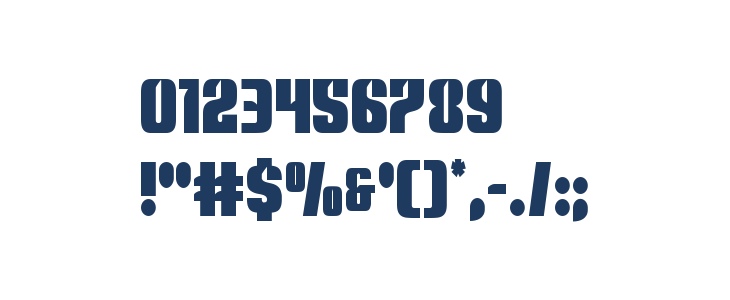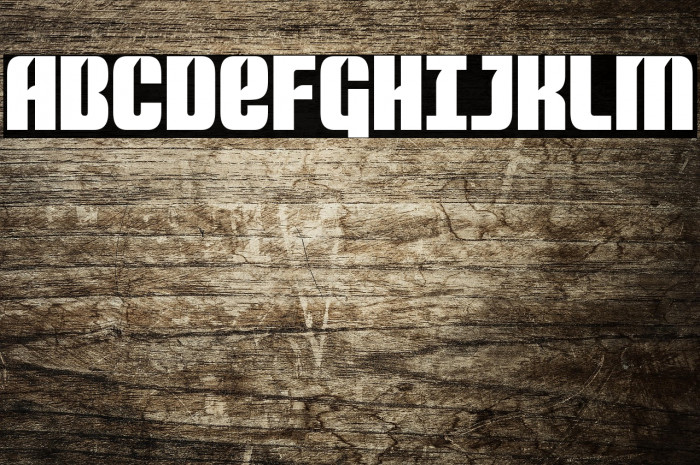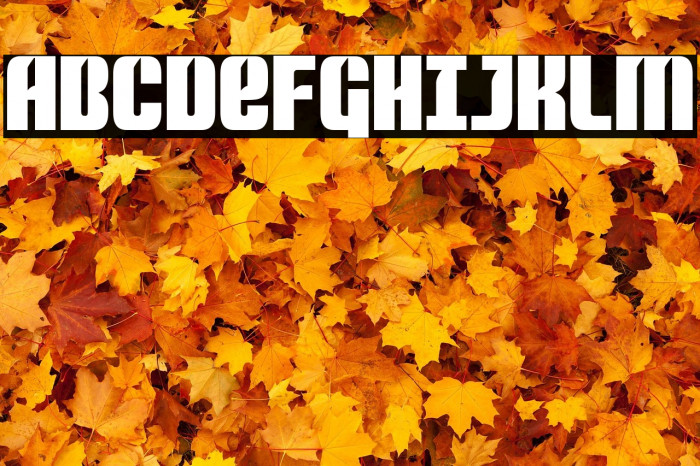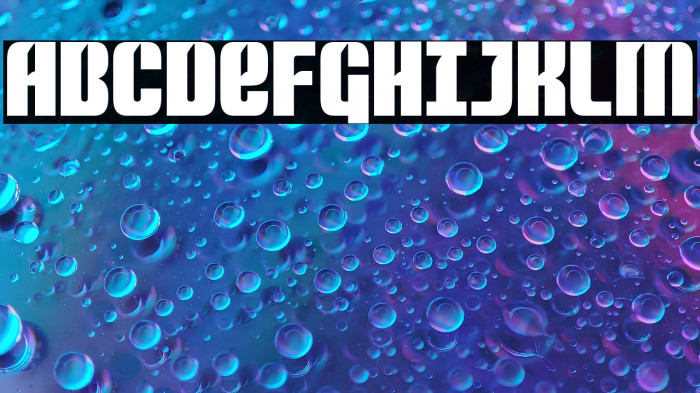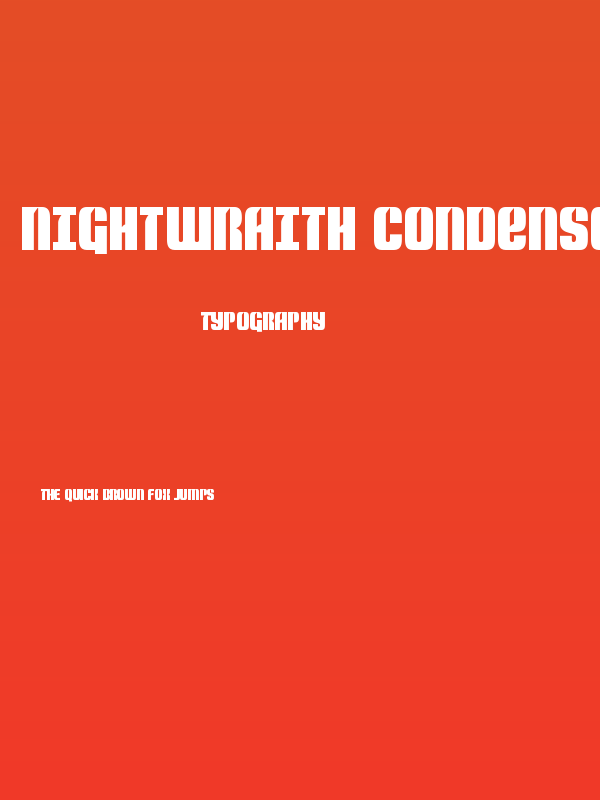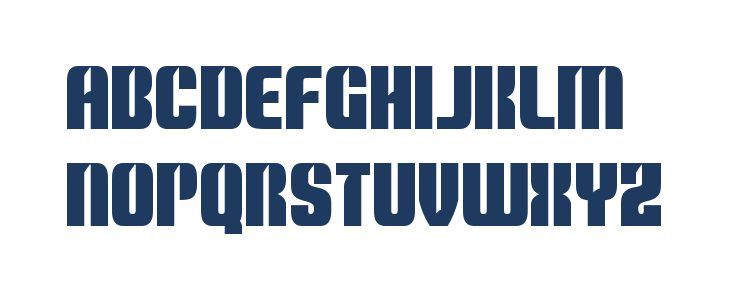
Nightwraith Condensed Font
Nightwraith Condensed Description
This font features a bold, condensed style with strong geometric shapes and high contrast between thick and thin strokes. The characters are designed with a modern, industrial aesthetic, making them stand out with their block-like appearance. The uppercase and lowercase letters maintain a consistent width, contributing to the font's uniformity and structured look. The numerals and special characters follow the same design principles, ensuring a cohesive visual identity across all glyphs. This font's striking presence makes it ideal for attention-grabbing designs.
| Proposed Projects | Ideal for posters, headlines, branding, and any design requiring a strong visual impact. |